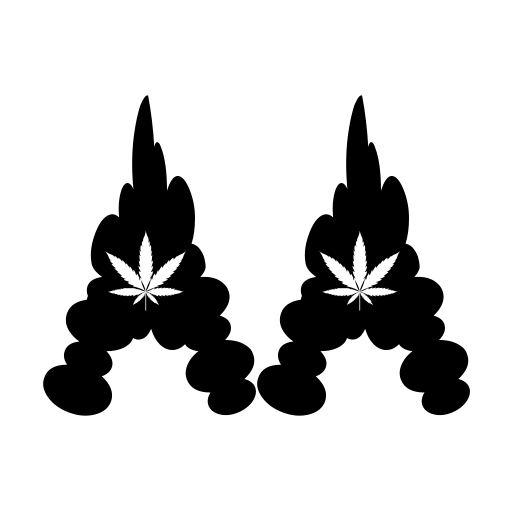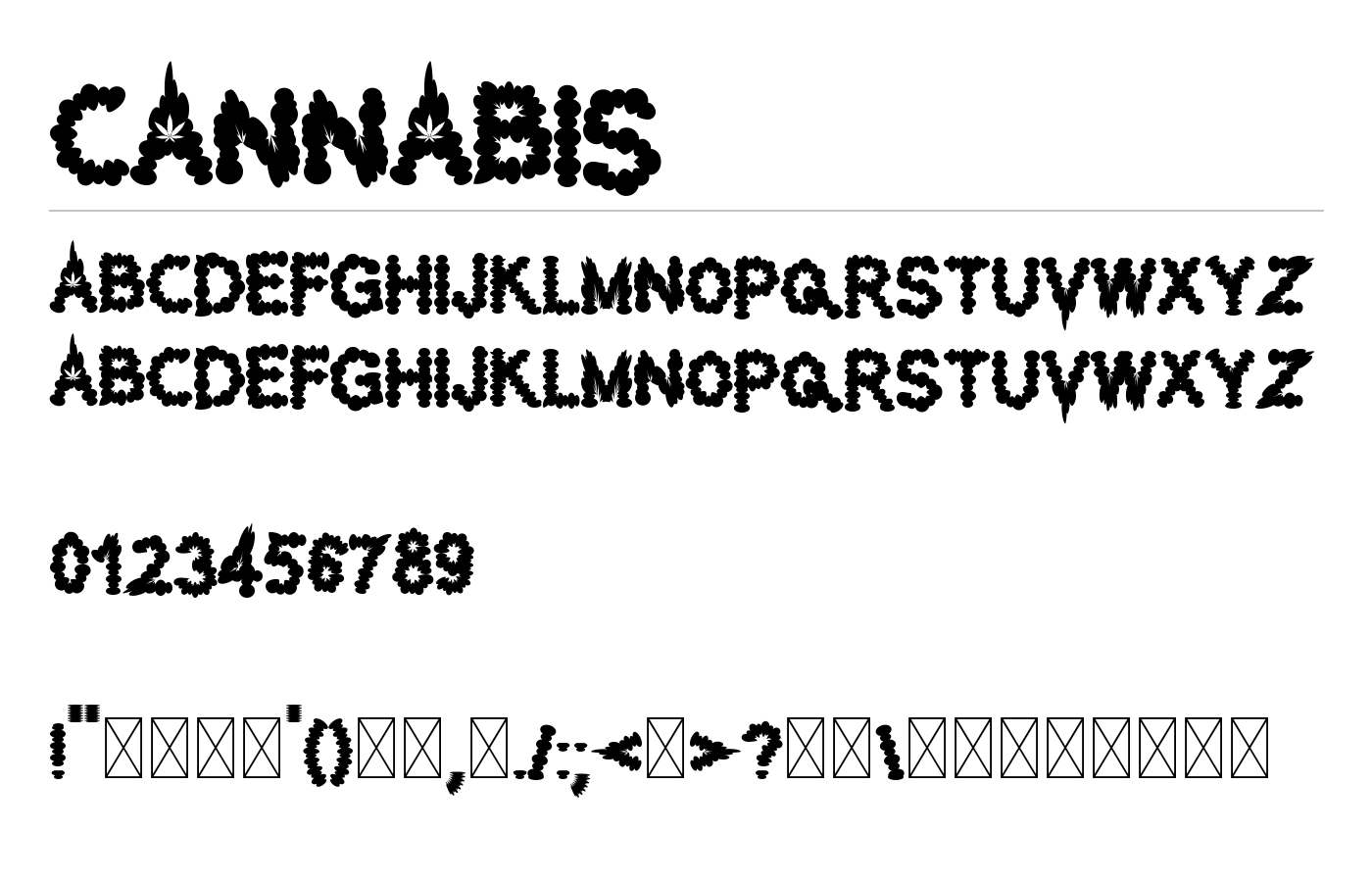
Cannabis Font is a bold, decorative display typeface that creatively mimics the texture of clustered cannabis leaves, giving it a playful and edgy vibe. This all-caps font features dense, rounded shapes with unique flame-like or leafy accents on some characters, making it perfect for eye-catching headlines, logos, and designs related to cannabis culture or alternative lifestyle brands. Its distinctive, organic style lends a fun yet rebellious personality ideal for posters, packaging, and branding in youth-oriented or countercultural markets.
Cannabis Font